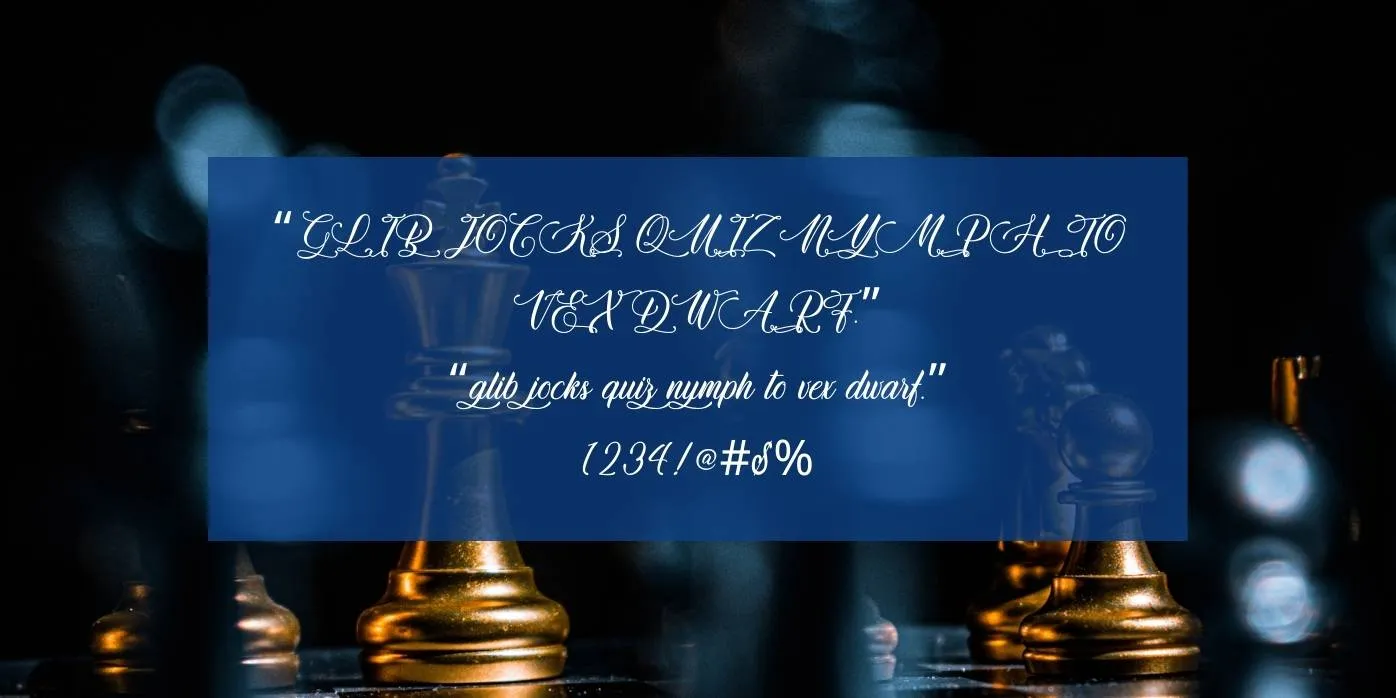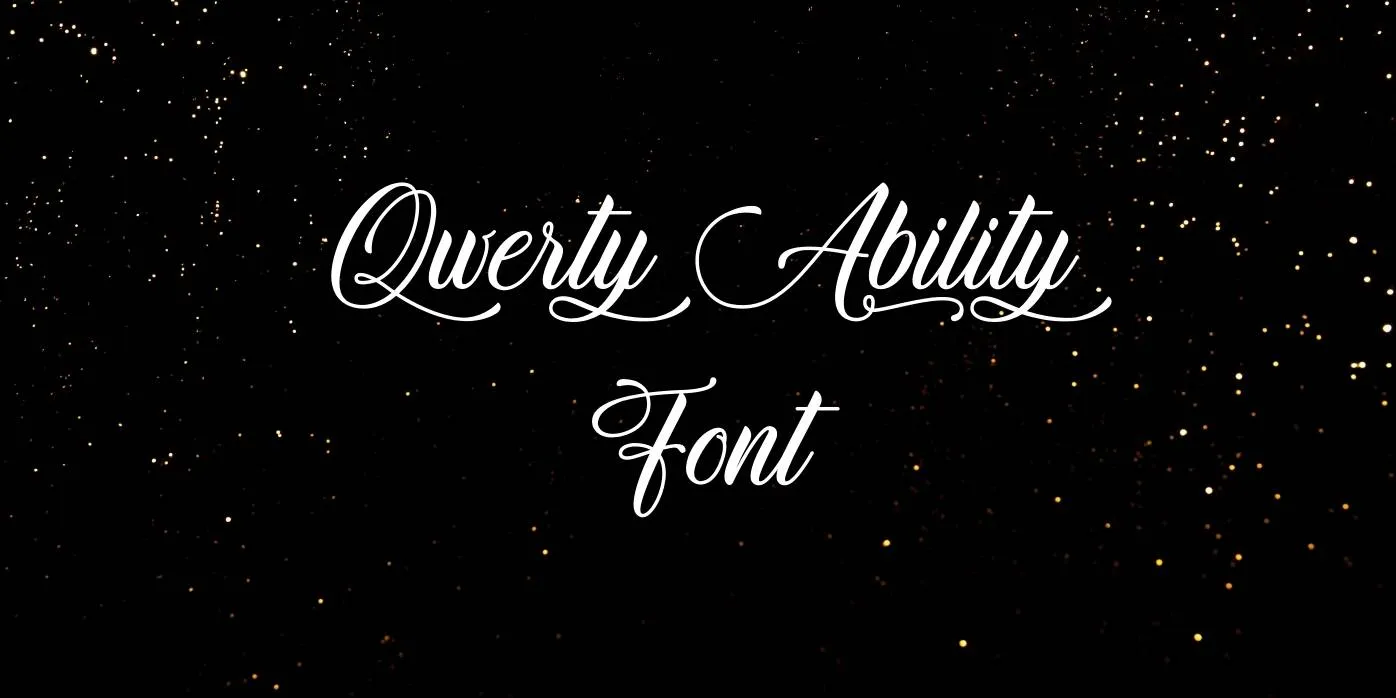
Qwerty Ability Font
Here, we are going to present a stylish typeface known as Qwerty Ability Font. This typeface was developed by Suthi Srisopha and it belongs to the calligraphy family. It has a unique and elegant look. You can also specify the CSS and HTML.
The best thing about this typeface is that it supports various languages including Latin, Thai, and Vietnamese. So, if you are looking for a font that can be used for multilingual projects, then Qwerty Ability Font would be a great choice. Its copy and paste function is perfect for all designs. You can use the respective font which has the same style and characters as this one.
This typeface has a very stylish design and it would be perfect for luxury brands or high-end fashion labels. This family includes styles such as Regular, Bold, and Italic. It also supports a wide range of characters. It has a beautiful design and it supports various languages.